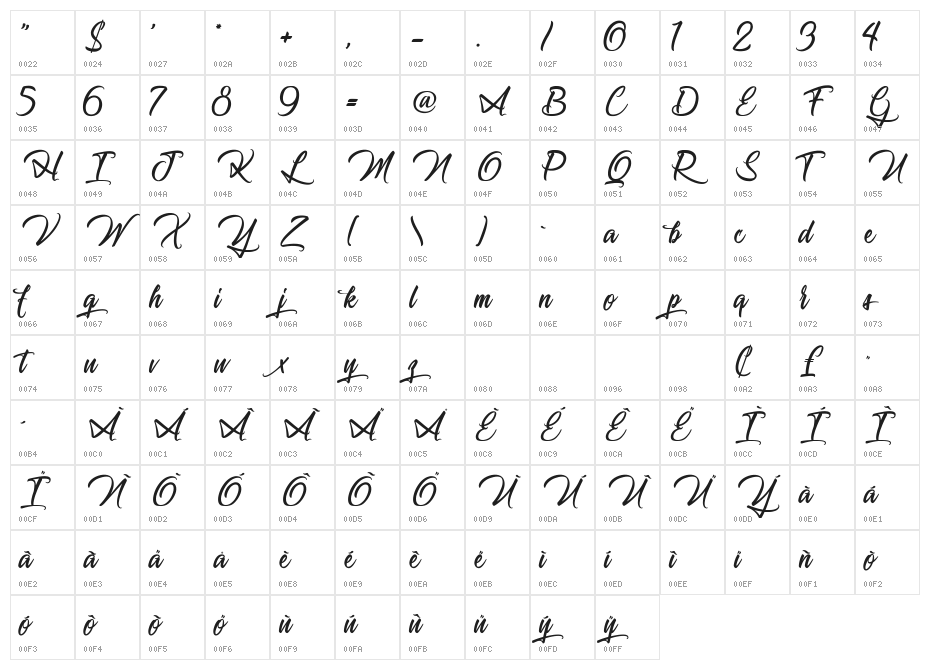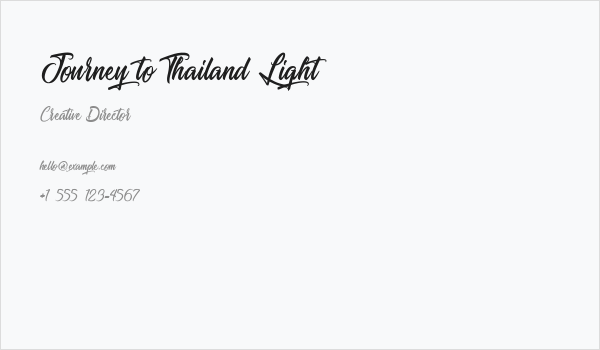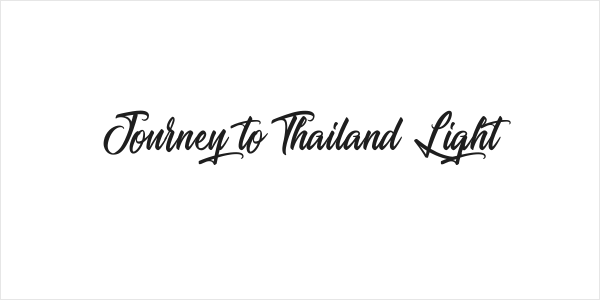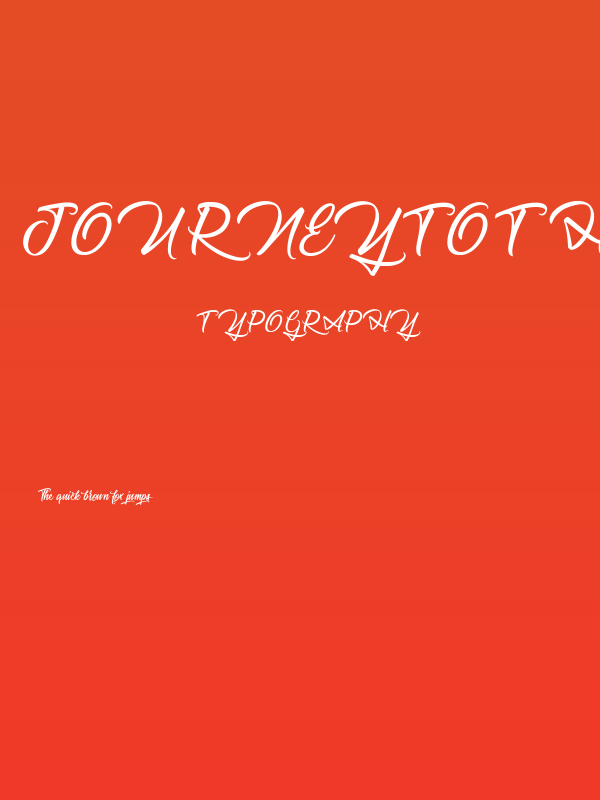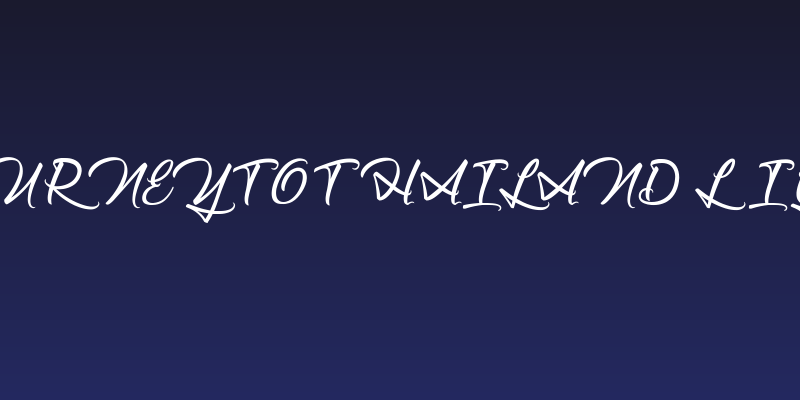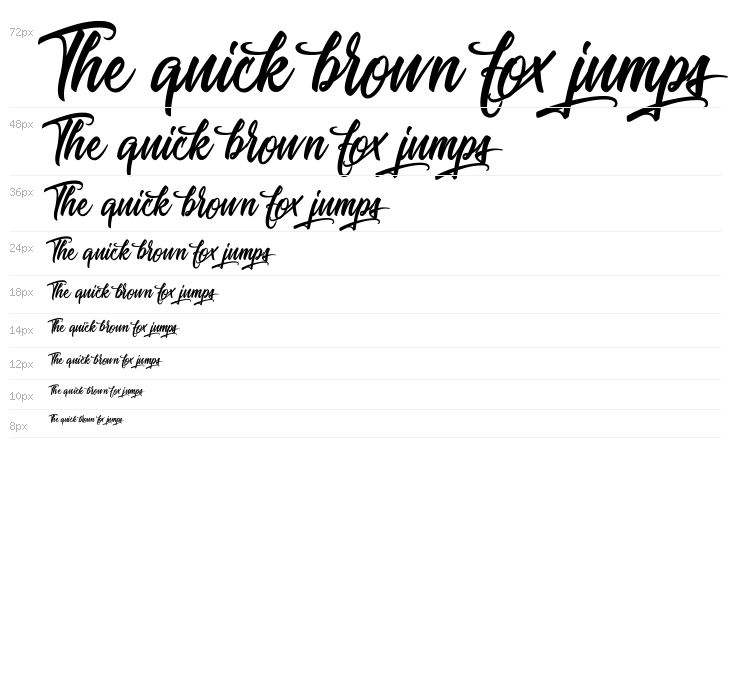
Journey to Thailand Light Font
Journey to Thailand Light Description
This font exudes a lively and dynamic script style, characterized by its flowing, cursive letters that mimic the fluidity of handwriting. The uppercase letters are elegantly crafted with distinctive flourishes, while the lowercase letters maintain a consistent rhythm and balance. The numerals are bold and rounded, complementing the overall aesthetic. Special characters are thoughtfully integrated, enhancing the font's versatility. The strokes are smooth and continuous, creating a harmonious and visually appealing appearance. This font is perfect for projects that require a personal touch or a sense of elegance and sophistication.